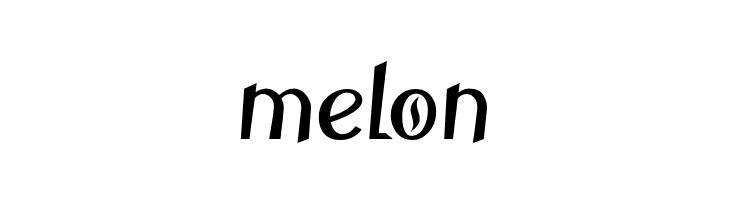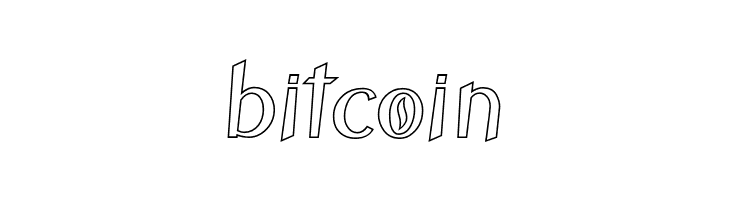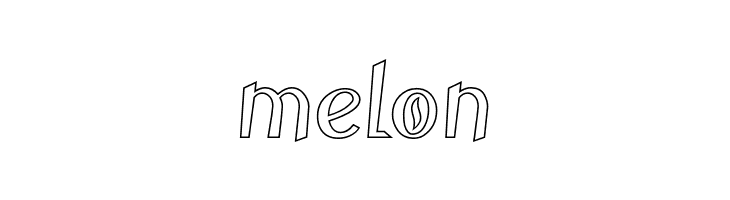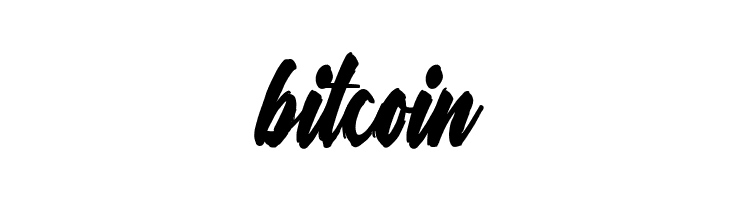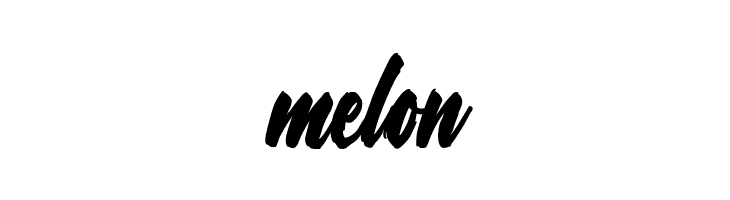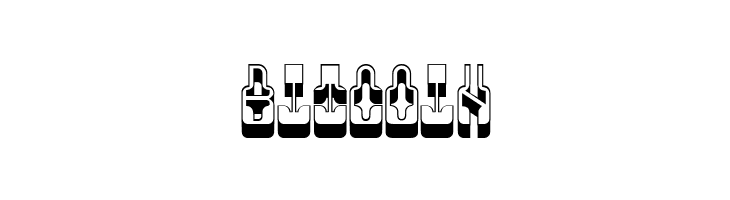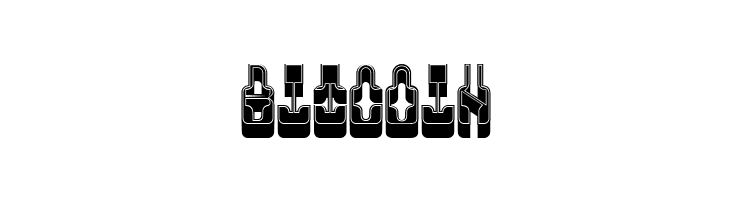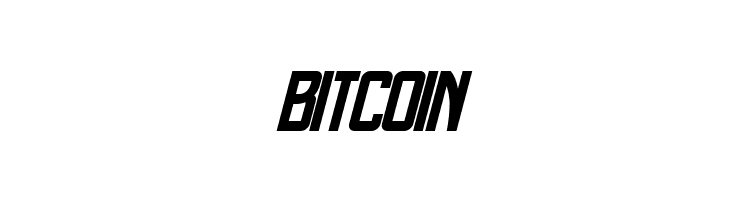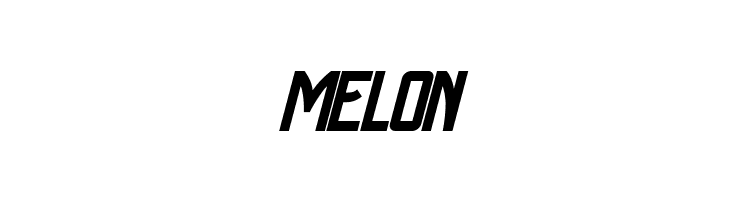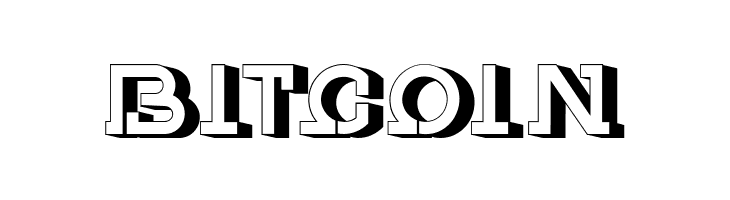
• Ataro
A dynamic, slightly italicized font with sharp, angular strokes and a modern flair.
• AtaroOutline
A modern, outlined font with geometric structure and consistent stroke width.
• Attractive Blockhead
A bold, cursive font with thick strokes and a flowing, dynamic style.
• Athens Hollow Regular
A bold, hollow font with a three-dimensional, futuristic style.
• Athens Filled Regular
A bold, geometric font with a filled, block-like design and three-dimensional effect.
A bold, condensed, and italicized font with a dynamic and modern style.
• Atheist Regular
A bold, three-dimensional font with a strong shadow effect and geometric style.
• Atomic Age
( Fonts by Eben Sorkin )
A futuristic, geometric font with a retro vibe and unique angular design.
• AtkinsonHyperlegible-Bold
( Fonts by Braille Institute )
A bold, modern sans-serif font focused on clarity and readability.
• Afterlife Attack
( Fonts by Masa Aska Sanurumi )
A playful, bold, hand-drawn style font with a whimsical and casual feel.
• Speed Attack Demo Left Italic
A bold, angular font with a left-leaning, dynamic style, ideal for energetic designs.
• Cyrillic Attitude Regular
A bold, playful font with a 3D shadow effect and cartoonish style.
• Attazack
A playful handwritten font with rounded, consistent strokes and a casual style.
• DEAD ATTACK
A bold, brush-style font with dynamic, energetic strokes.
• Attention Script
A dynamic, flowing script font with a cursive, handwritten style.
• Attahost
A modern, elegant script font with flowing, connected strokes.
• Ninja Attack Italic
A bold, italic font with angular, dynamic characters for impactful designs.
• Black Attacks
A bold, expressive script font with dynamic, cursive letterforms.
• Attention
A dynamic and expressive handwritten font with fluid, interconnected strokes.
• Athena - Personal Use
A cursive, handwritten-style font with elegant, flowing strokes.